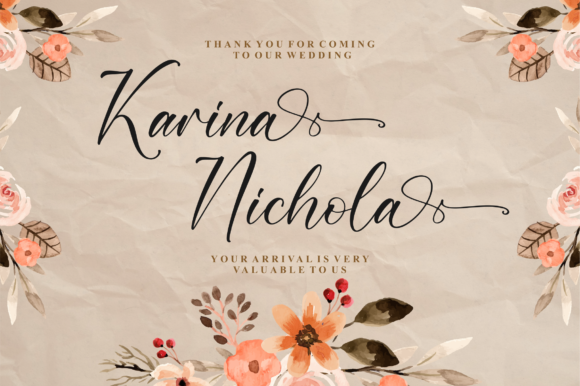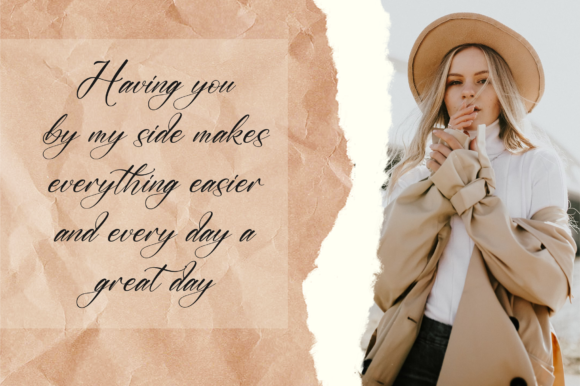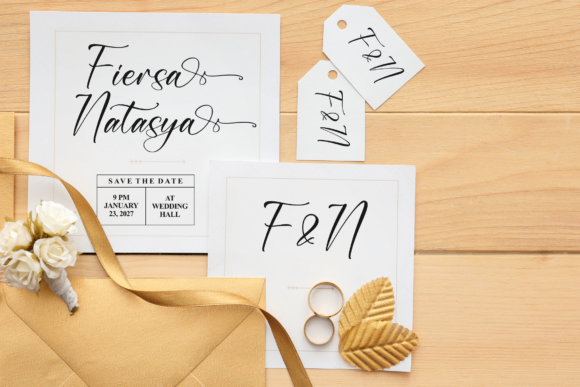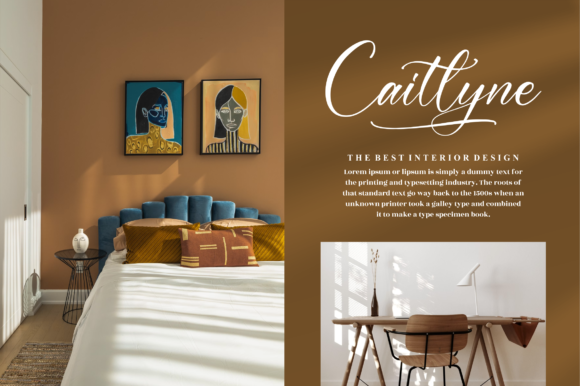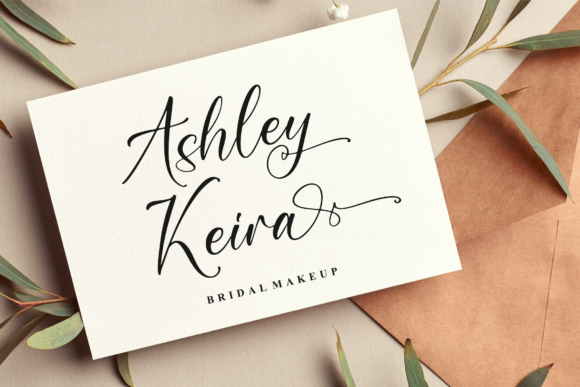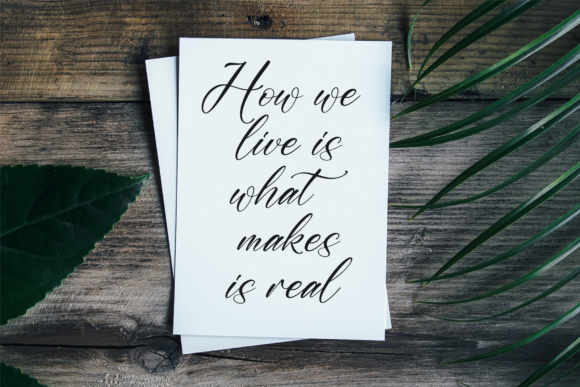
Introduction to Kidhney Hallway Font
Kidhney Hallway is a chic styled script font.
It is a suitable for any projects such as: logos, branding projects, homeware designs, product packaging, mugs, quotes, posters, and a couple of other creations This font is PUA encoded which means you can access all of the amazing glyphs and ligatures with ease.